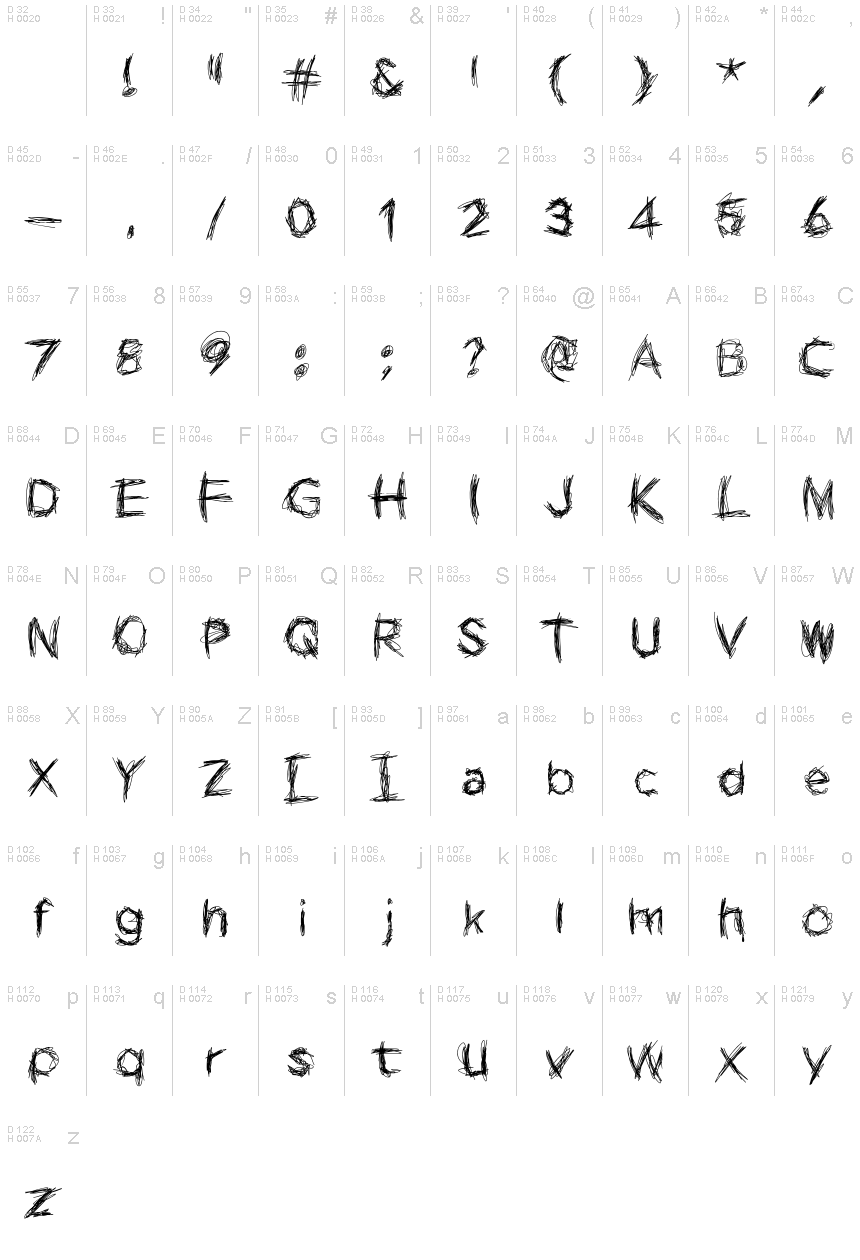
PANIC
Panic, designed by Erildi Jesku, is a script font that embraces the raw energy of urban art. As a trash style typeface, it exudes an edgy aesthetic with its seemingly haphazard and expressive strokes, mimicking the hurried scrawls found on city walls. This font's unrefined appearance adds a genuine handcrafted feel to any project, making it ideal for designs aiming to stand out with a rebellious touch.
The chaotic charm of Panic lends itself wonderfully to creative endeavors that require a touch of grunge or need to convey urgency and emotion. Whether it's for band posters, avant-garde fashion labels, or impactful social media graphics, this font has the versatility to deliver messages with impact and authenticity. Its distinctive style ensures that any content will capture attention and provoke thought in an artistic landscape hungry for bold expressions.